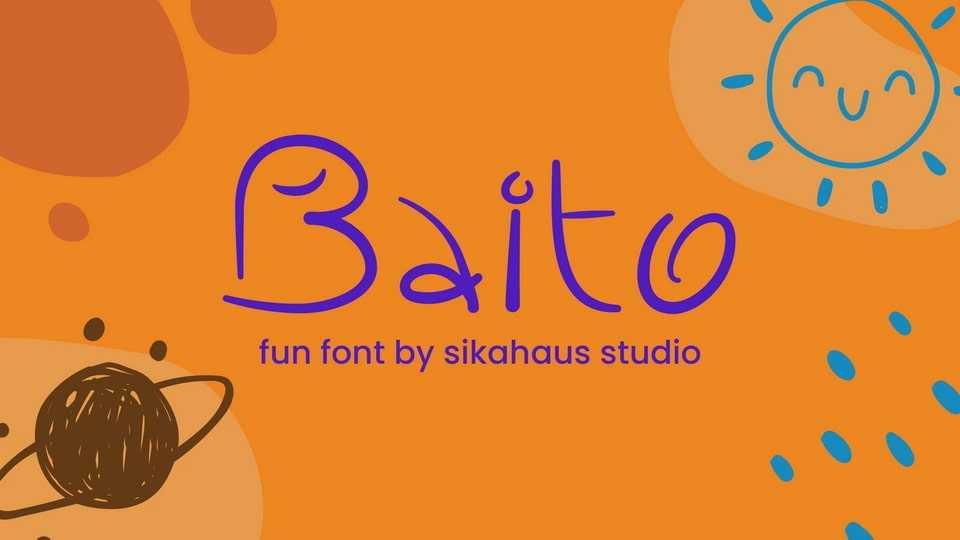
Download Baito font, a cheerful and playful typeface designed to bring smiles! Perfectly suited for children’s content, cute branding, colorful illustrations, and anything that needs a touch of charm.
Designer: Sikahaus Studio